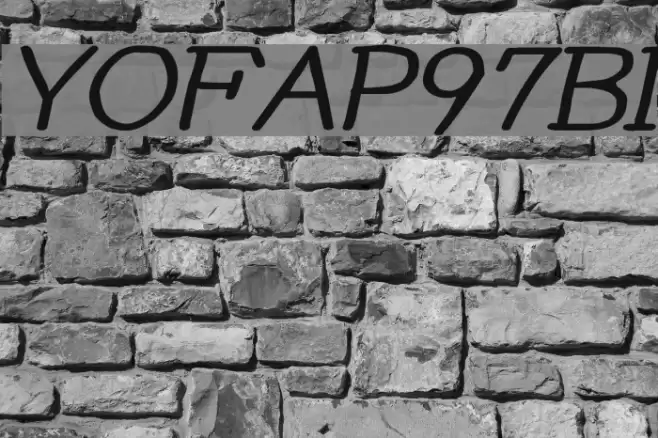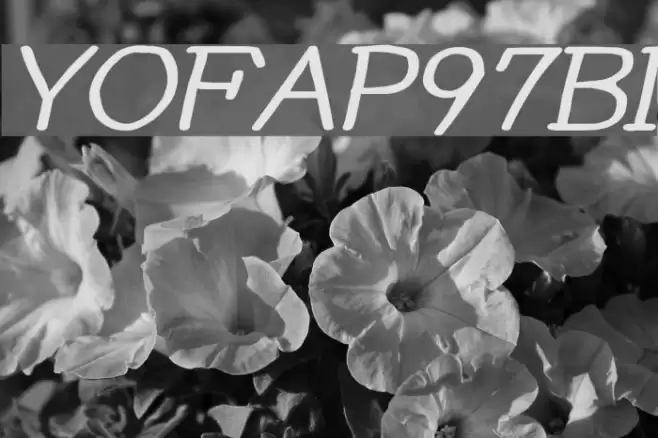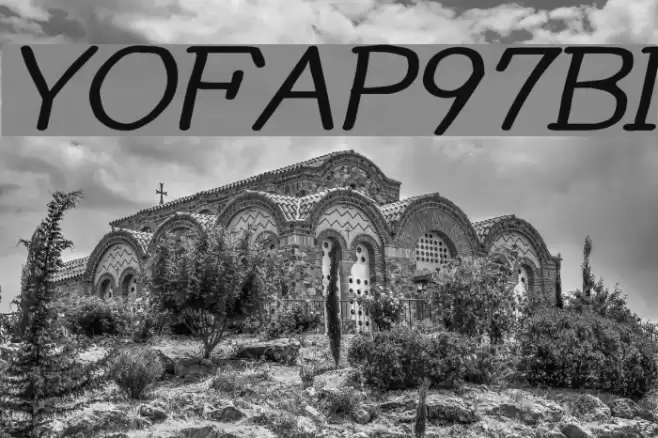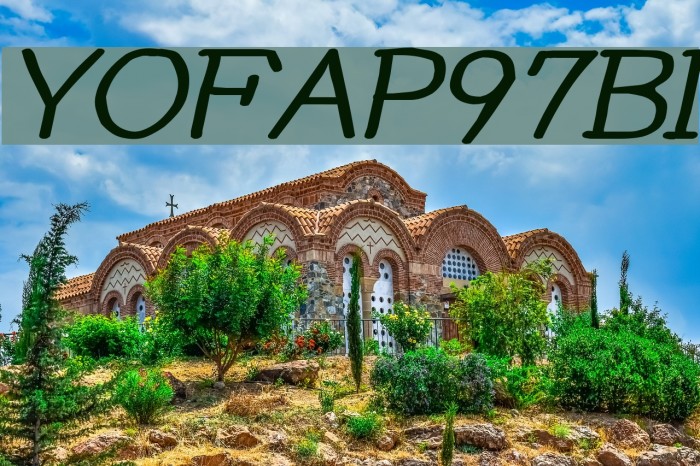
YOzFontAP97 Bold Italic Font
YOzFontAP97 Bold Italic Description
This font features a bold and italic style, characterized by its dynamic and slanted letterforms. The uppercase letters are elegantly structured with a slight forward tilt, giving a sense of movement and sophistication. The lowercase letters maintain a consistent flow, enhancing readability while preserving the font's unique style. Numbers are clear and bold, ensuring visibility in various applications. Special characters are well-defined, complementing the overall aesthetic. The font's design is suitable for projects that require a touch of elegance and modernity.
A bold, italic font with dynamic, slanted letterforms and elegant structure from Uncategorized fonts.